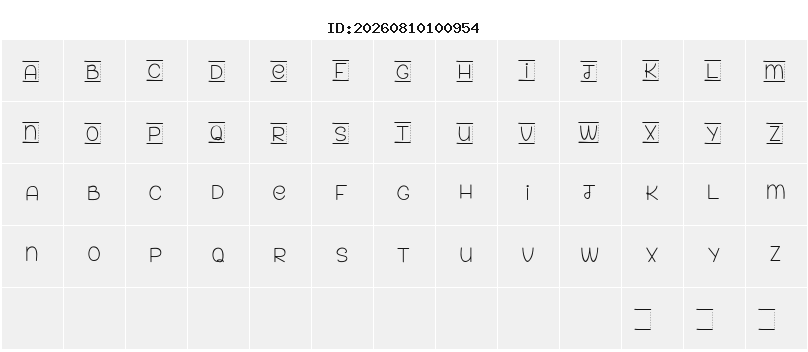
• Font Name: PAPER FOR YOUR ASS
• Manufacturer: M.K.V
PAPER FOR YOUR ASS.ttf is a modern, elegant sans-serif font designed for ultimate readability and visual harmony. Perfect for branding, headlines, web design, and print materials.